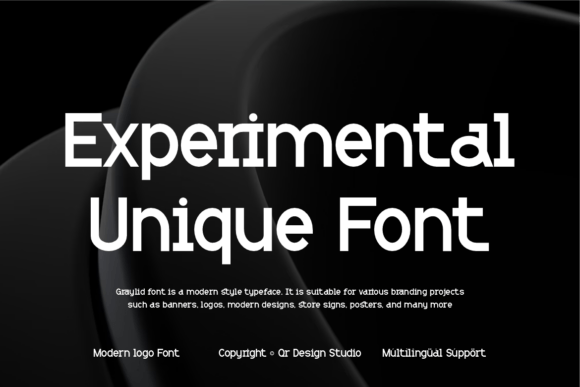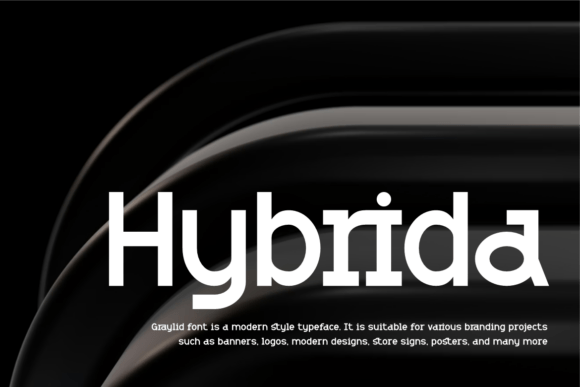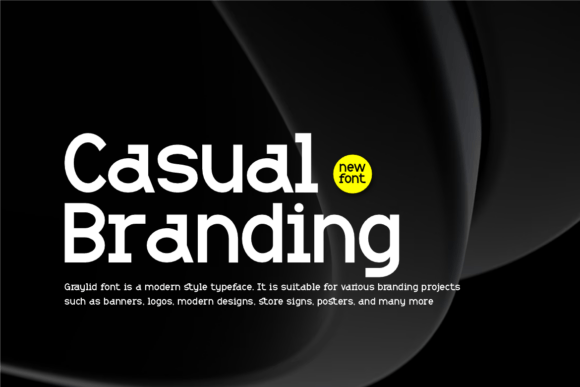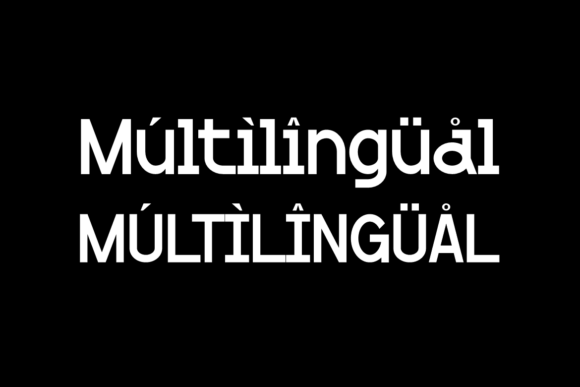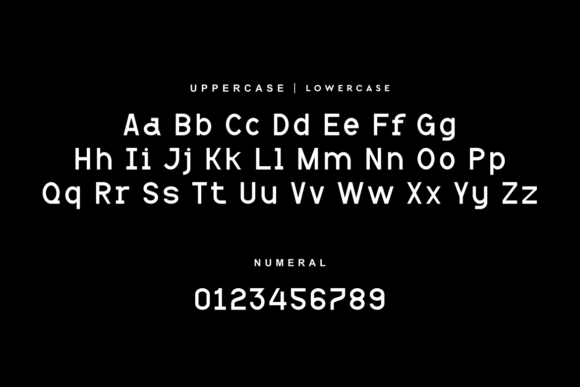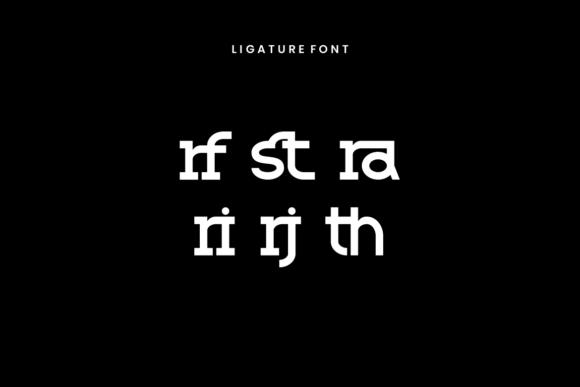
Introduction to Graylid Font
Do you remember that moment when you stumble upon a design resource that completely transforms your creative project? For many designers, this moment is a game-changer. It’s the moment when a well-chosen font can elevate a logo, make a sports design pop, or simply give a brand a unique voice. If you’re one of those designers, you’re in luck. Today, we’re excited to introduce you to Graylid Font, a bold and authentic display typeface that’s sure to become your new go-to design partner.
As a designer, you know the importance of having a high-quality font that can adapt to any context. Graylid Font is that font – versatile, stylish, and perfect for a wide range of branding projects. With its transparent background and multilingual support, this font is a valuable asset for any designer looking to take their creative projects to the next level. And the best part? It’s available for free download, making it an instant hit among designers.
Key Features of Graylid Font
- High-quality design resource with a transparent background, ideal for creative projects that require a touch of elegance.
- Graylid Font offers a range of stylish and modern glyphs, making it a versatile design resource for various creative applications.
- Available in a single size, making it easy to use and adjust to different design needs.
- Unique characteristic: the font’s sleek and minimalist design makes it perfect for modern branding, logos, and packaging design.
- Perfect for designers and artists looking for a high-quality design resource that’s easy to use and customize.
Honest Review: Graylid Font
I recently stumbled upon the Graylid Font, and I must say it’s been a game-changer for my creative projects. This beautiful font is a design resource that offers a high-quality, elegant look that’s perfect for various applications.
What works well: ✨ The font’s clean and minimalist design makes it an excellent choice for logos, branding, and typography projects. It’s also available for free download, which is a major plus. The transparent background feature allows for seamless integration with various design elements.
Here are some key features that caught my attention:
- High-quality design suitable for creative projects
- Transparent background feature for easy integration
- Elegant and minimalist design perfect for logos, branding, and typography
Limitations: ⚠️ While the Graylid Font is excellent for many projects, it may not be suitable for more complex, bold, or playful designs. Additionally, some users may find the font’s simplicity a bit too minimalistic.
Overall, I’m impressed with the Graylid Font. Its high-quality design, free download, and transparent background features make it an excellent addition to any designer’s toolkit. While it may have some limitations, it’s an excellent choice for those seeking a clean and elegant look for their creative projects.
Tips for Getting the Most Out of Graylid Font
To get the most out of the Graylid Font, be sure to use it with a transparent background to create a seamless design. You can also experiment with different font sizes and colors to create a unique and visually appealing look.
The Graylid Font is a versatile design resource that can be used for a variety of creative projects, including graphic design, digital art, and print design. It’s also a great option for creating social media graphics, blog posts, and other online content.
Q: Is Graylid Font suitable for high-resolution printing?
Yes, the Graylid Font is designed to be high-quality and suitable for use in high-resolution printing applications. It includes advanced features such as hinting and kerning to ensure crisp and clear text output.